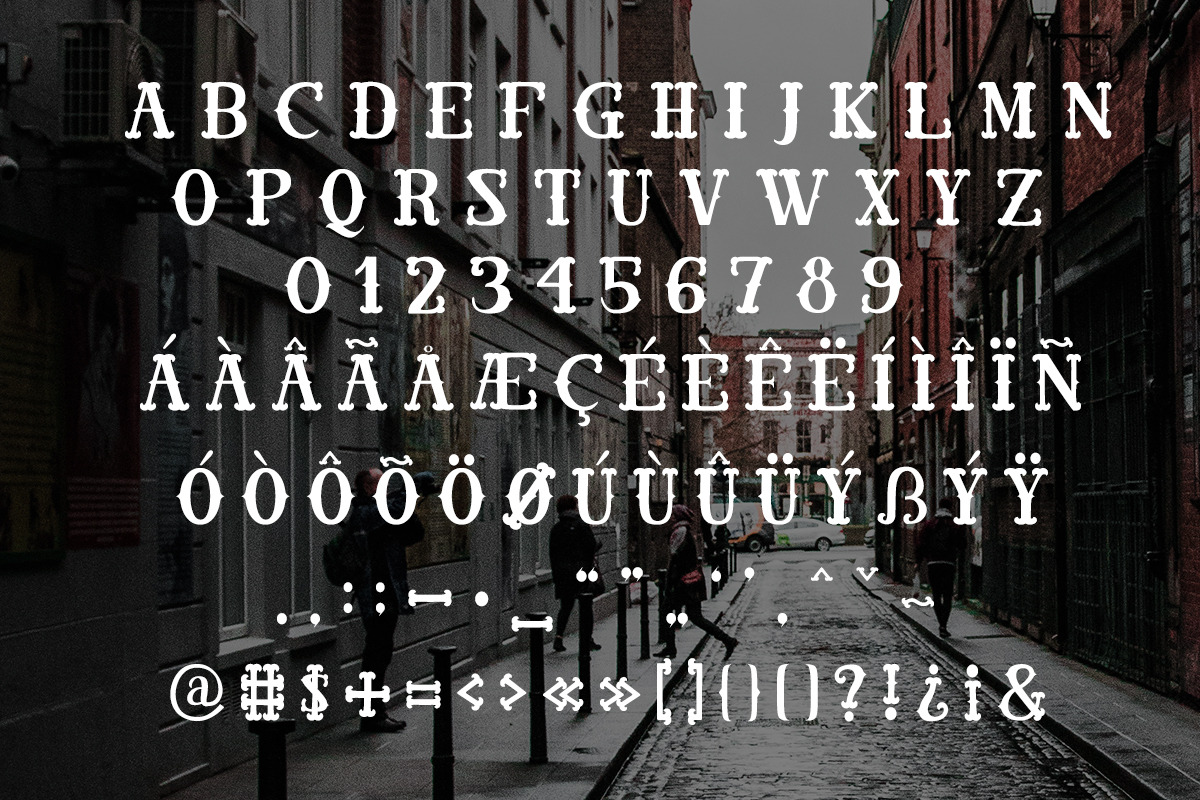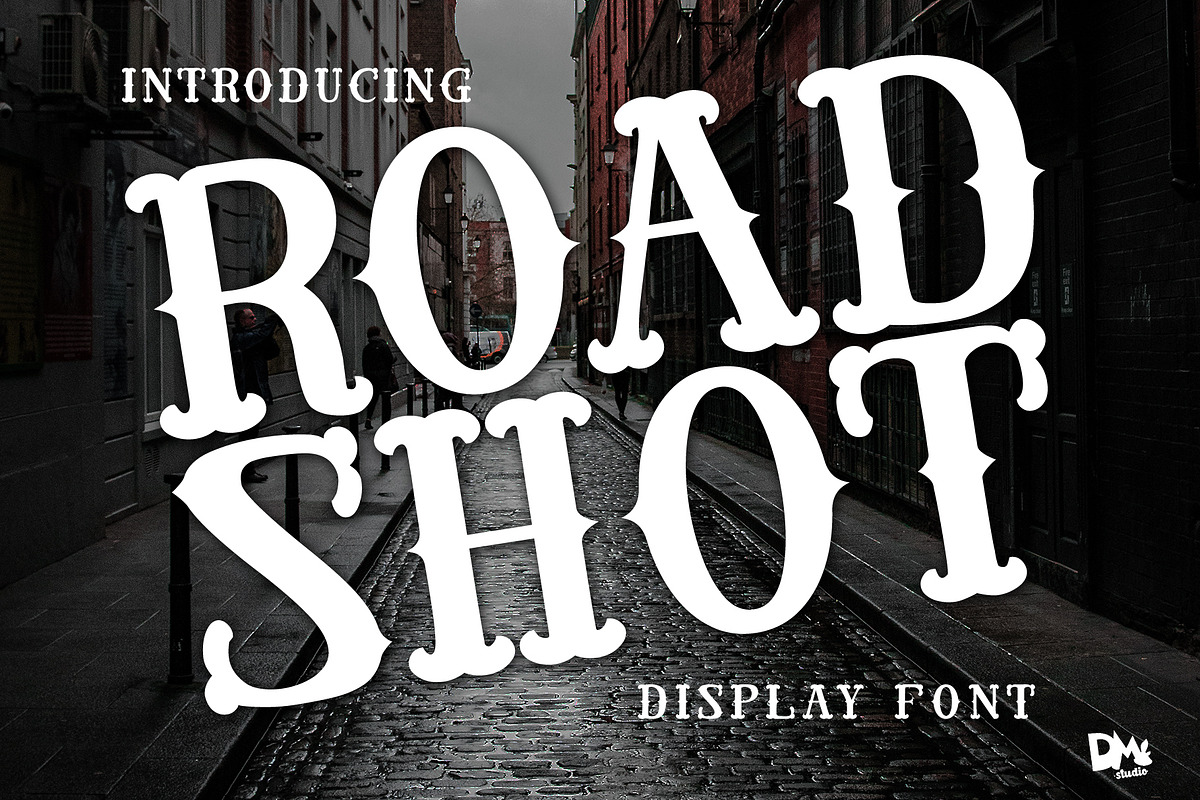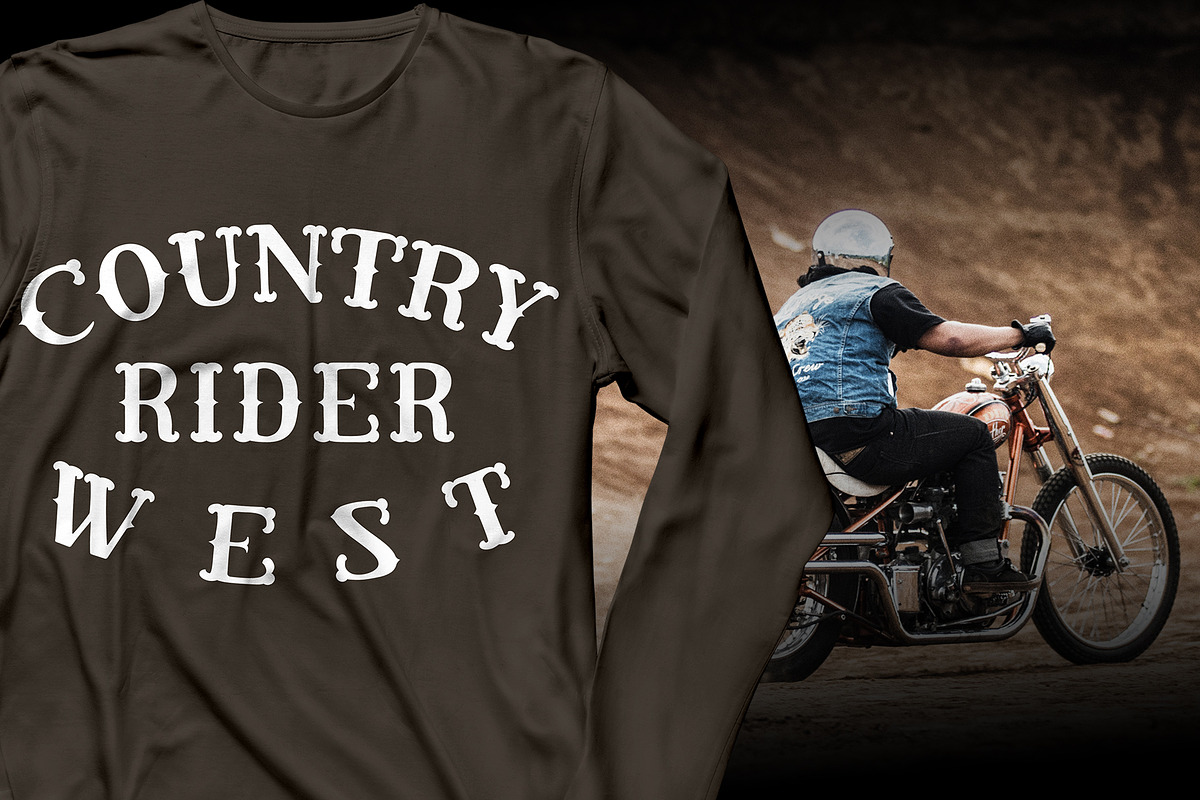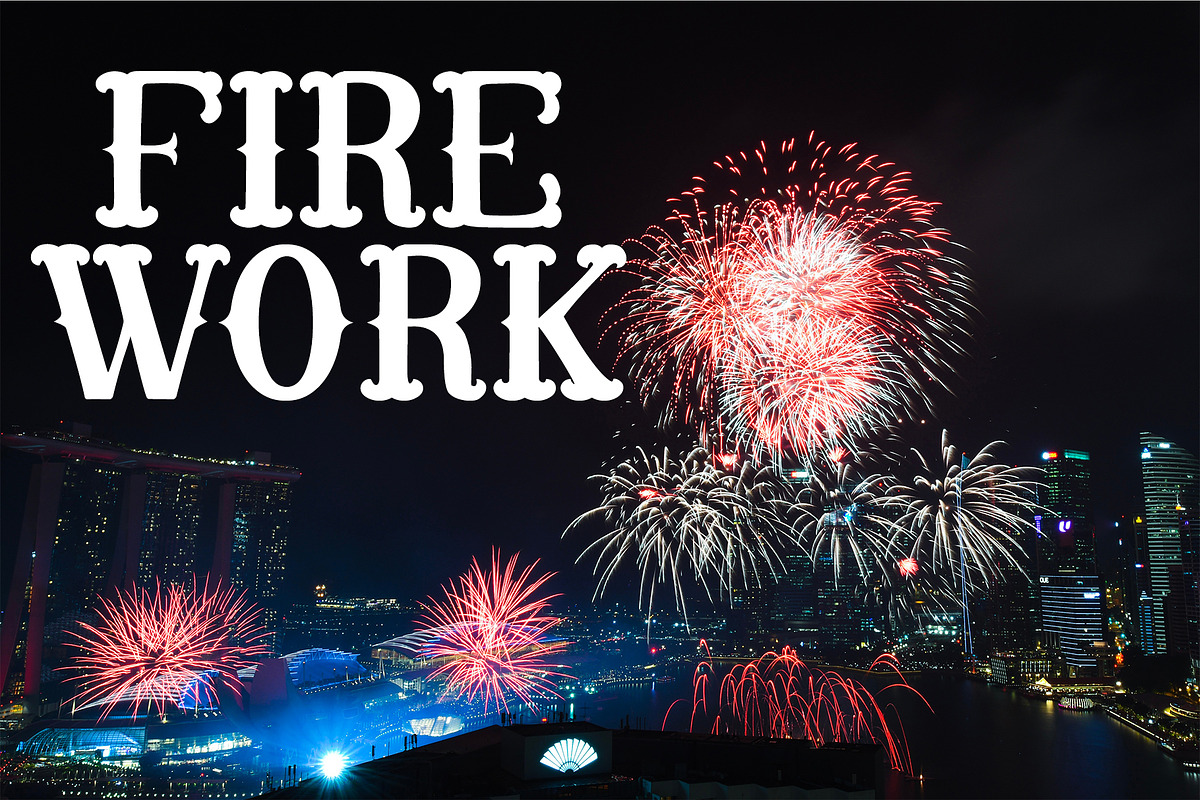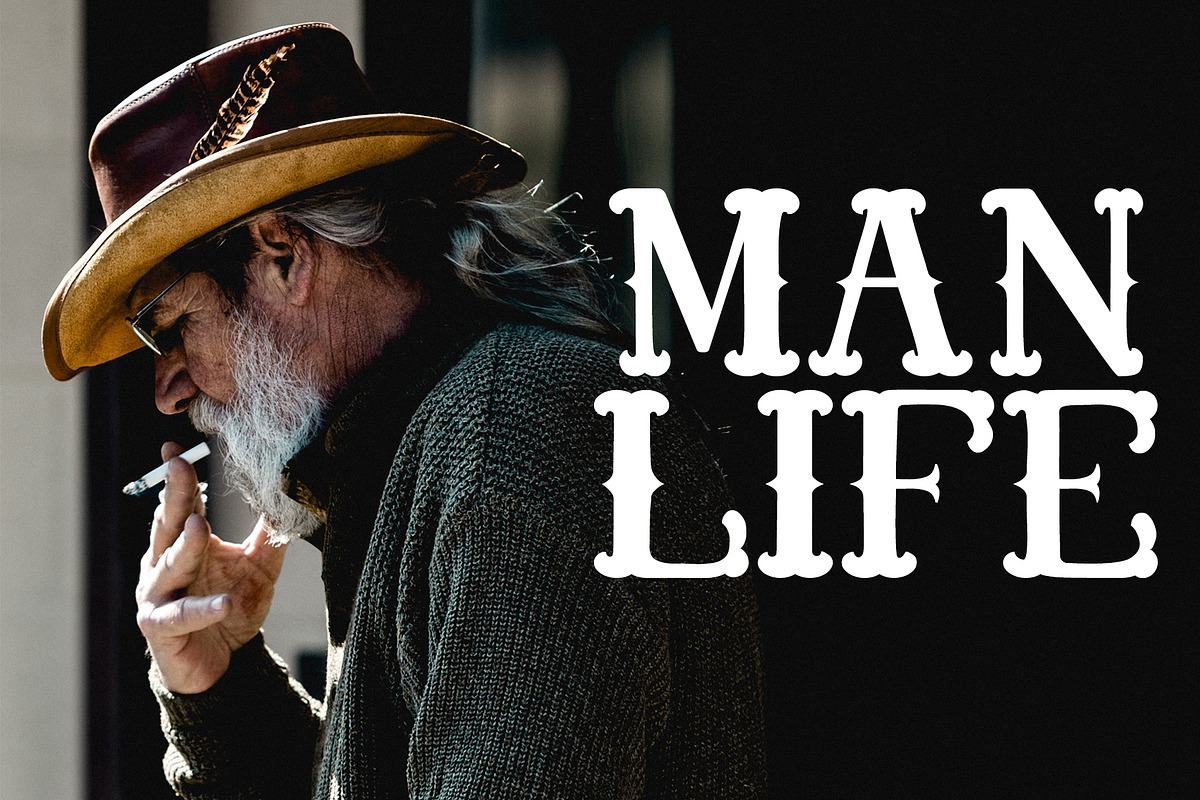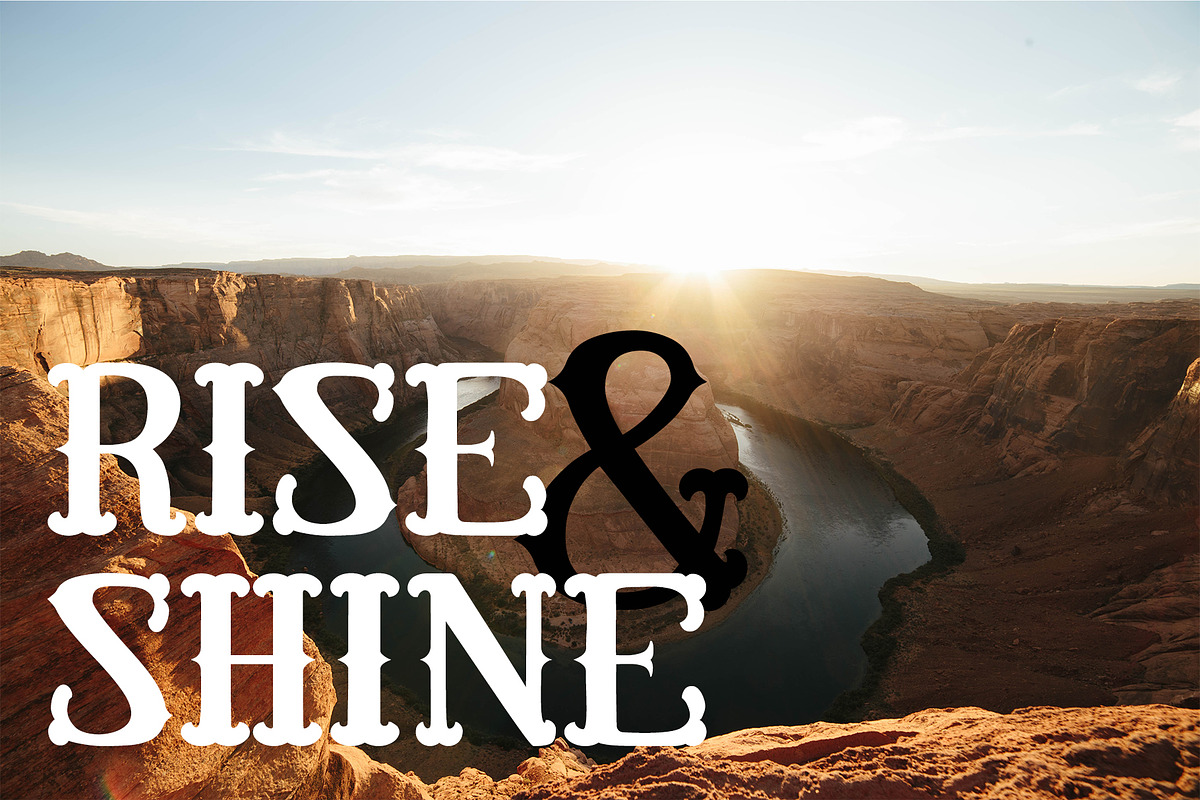
Road Shot - Display Font
Road Shot, Inspired by the old western serif font style, with handmade quality, detailed and clean. Also great for any old style designs, packaging, posters, stickers, t-shirts, signage, cards, logos, works best for headline display typeface at larger style point size.
- All In Caps Characters -Numerals -Symbols & Punctuations -Support Multilinguals